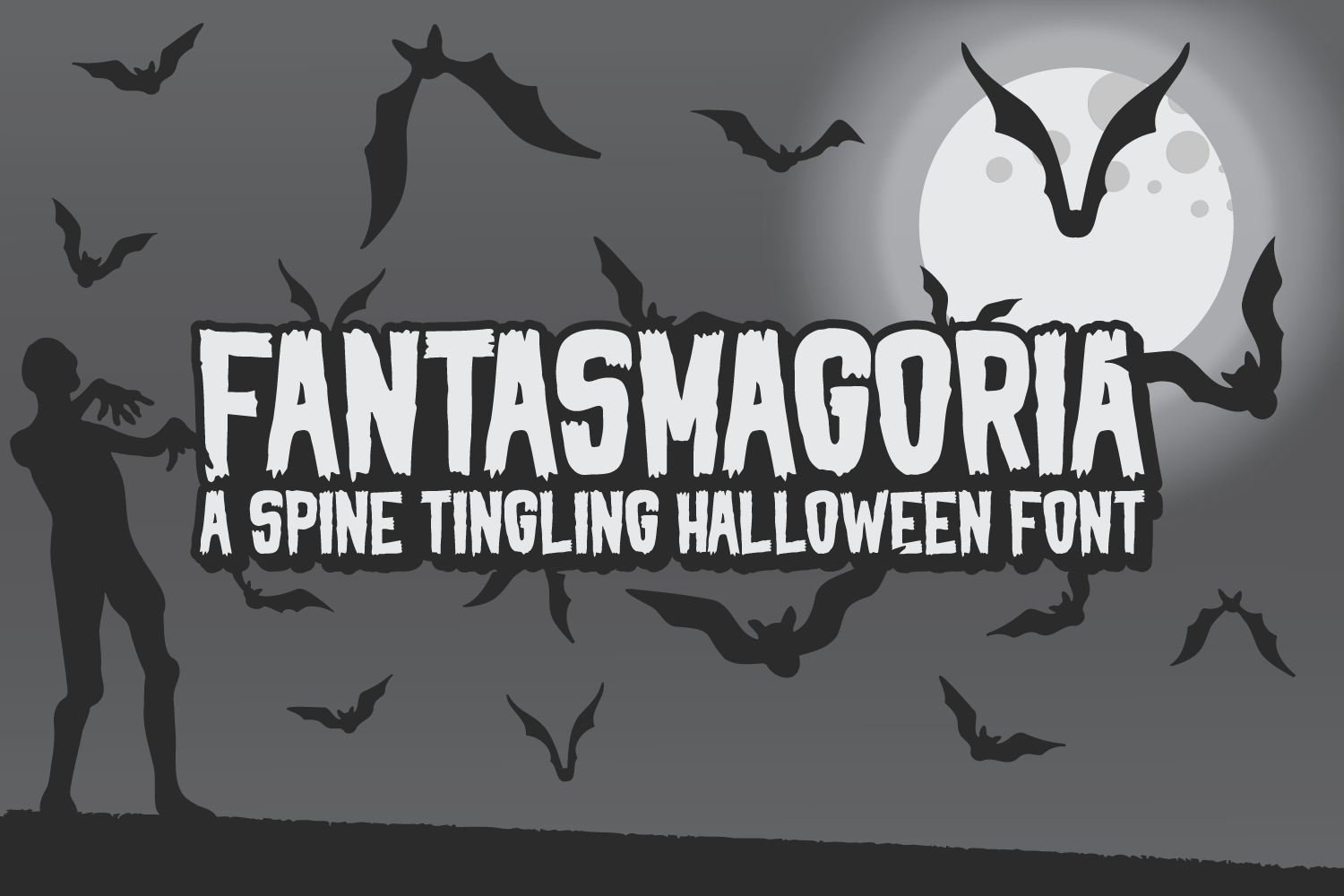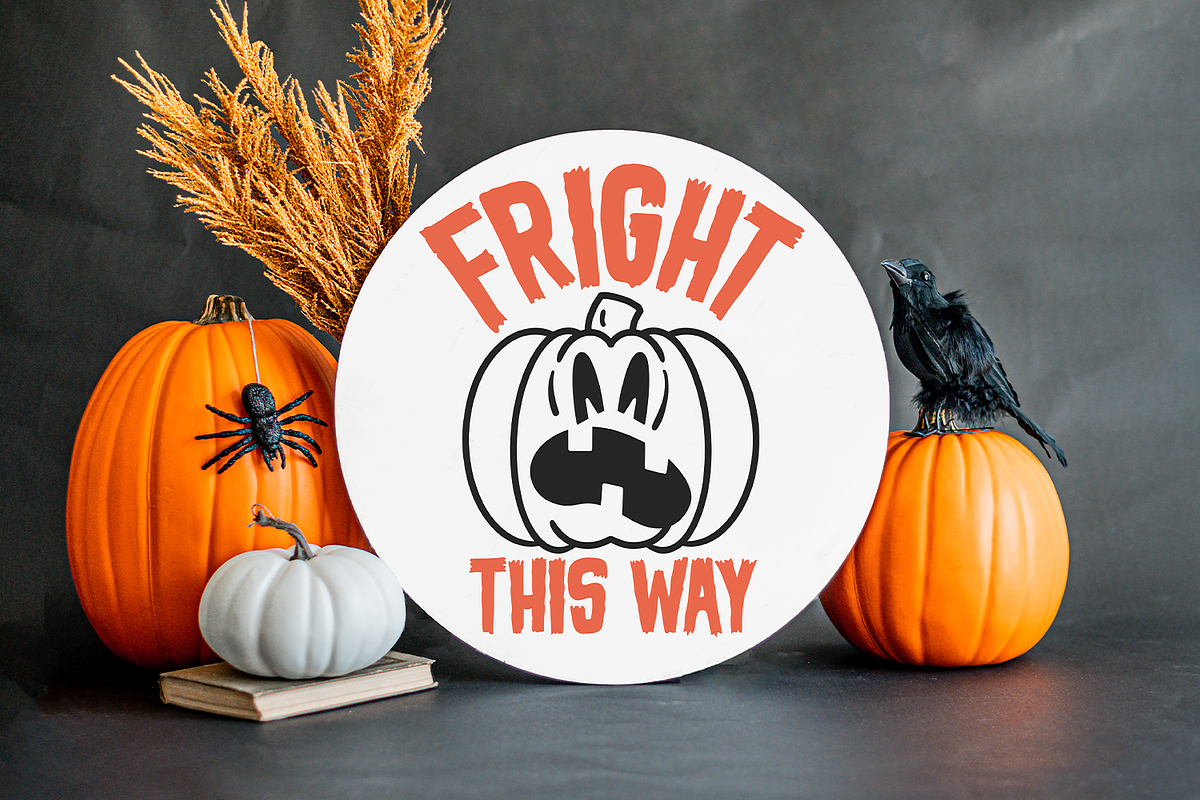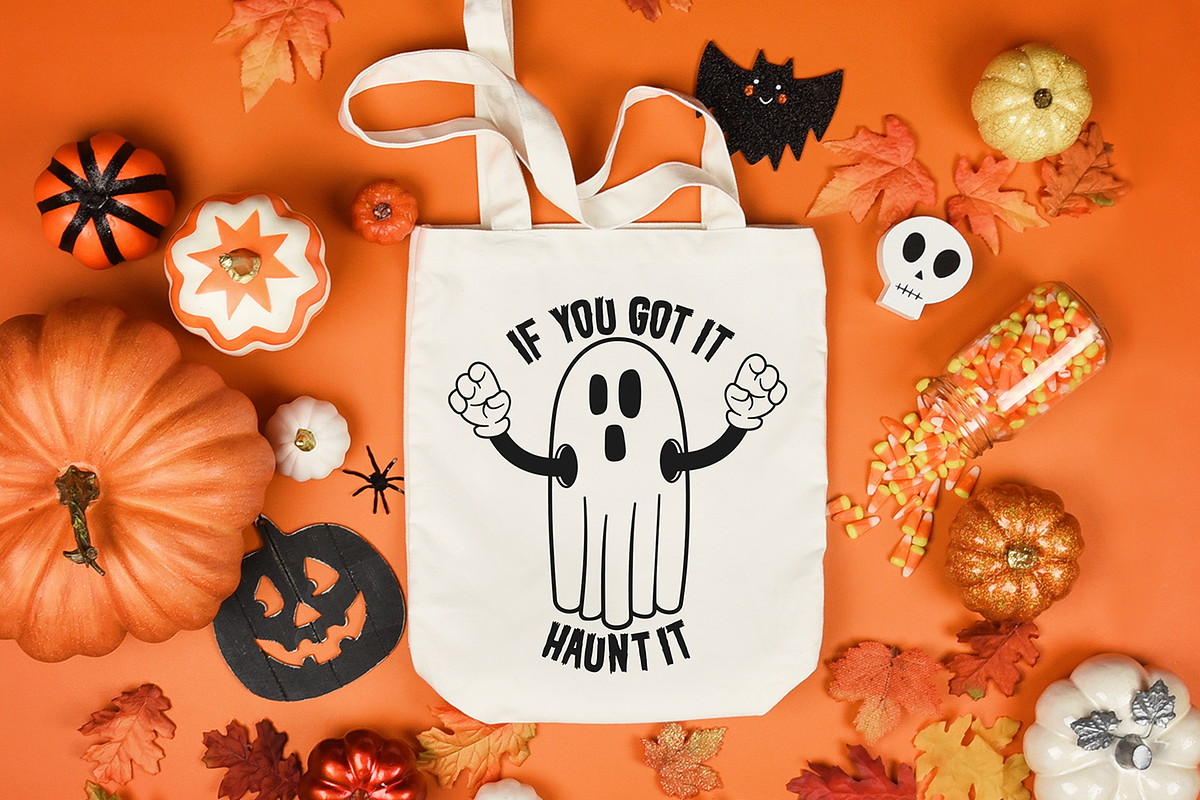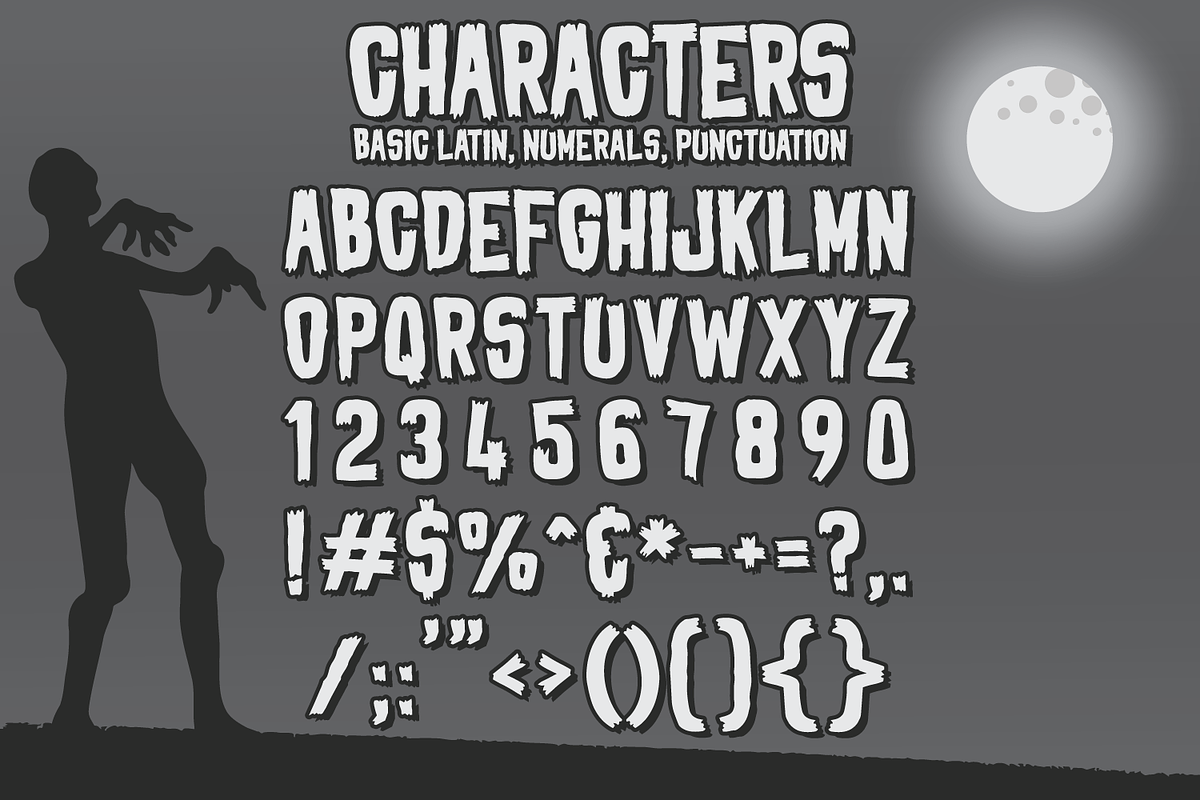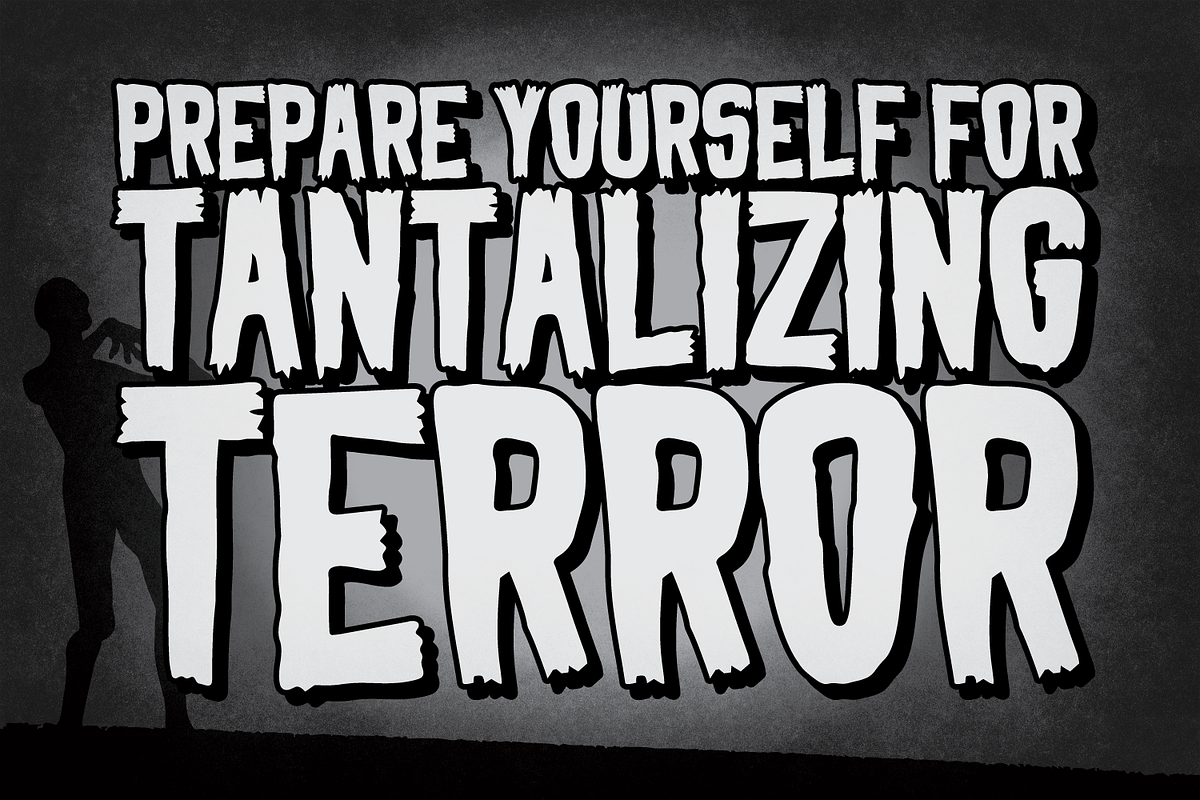
Fantasmagoria Halloween font
Meet Fantasmagoria, a spine-tingling Halloween font!
This font was inspired by titles for classic schlock horror and sci-fi films! It's perfect for terrifying t-shirts, spine-tingling signs, or monstrous mugs! Use it in your brain-curdling branding, or petrifying posters! This font was made for tantalizing terror!